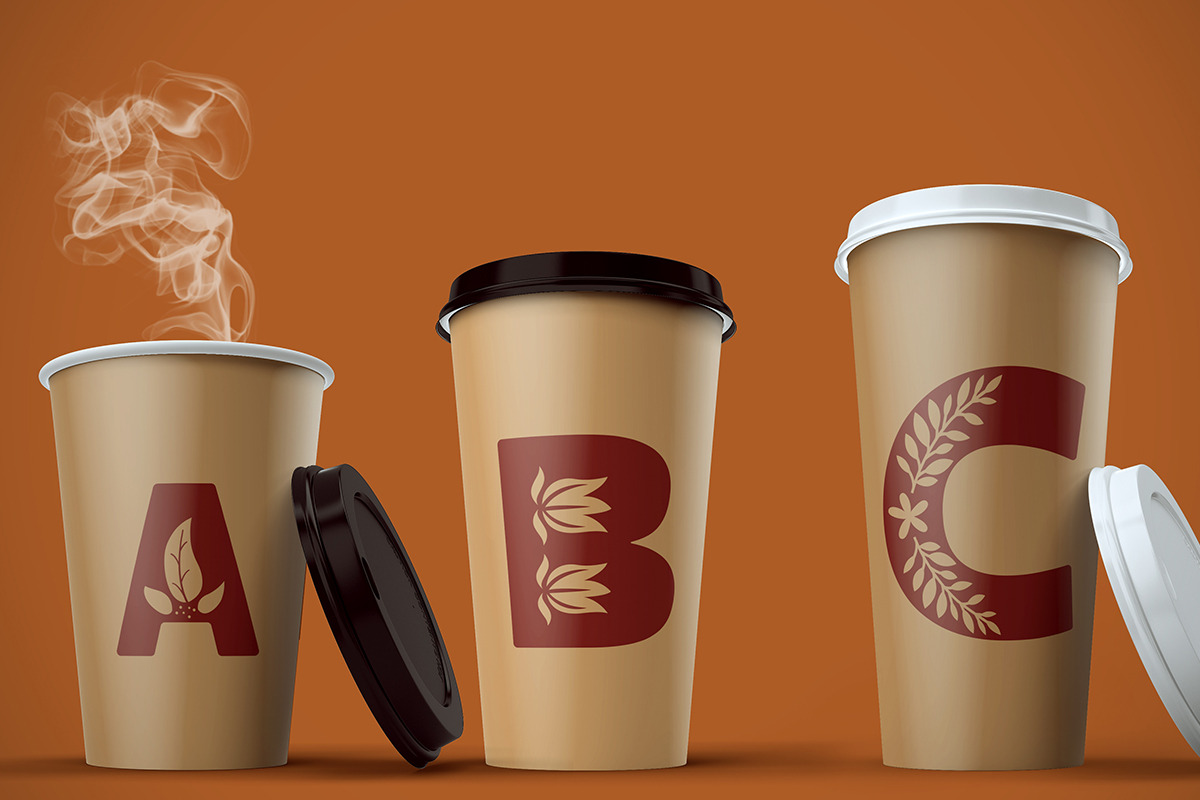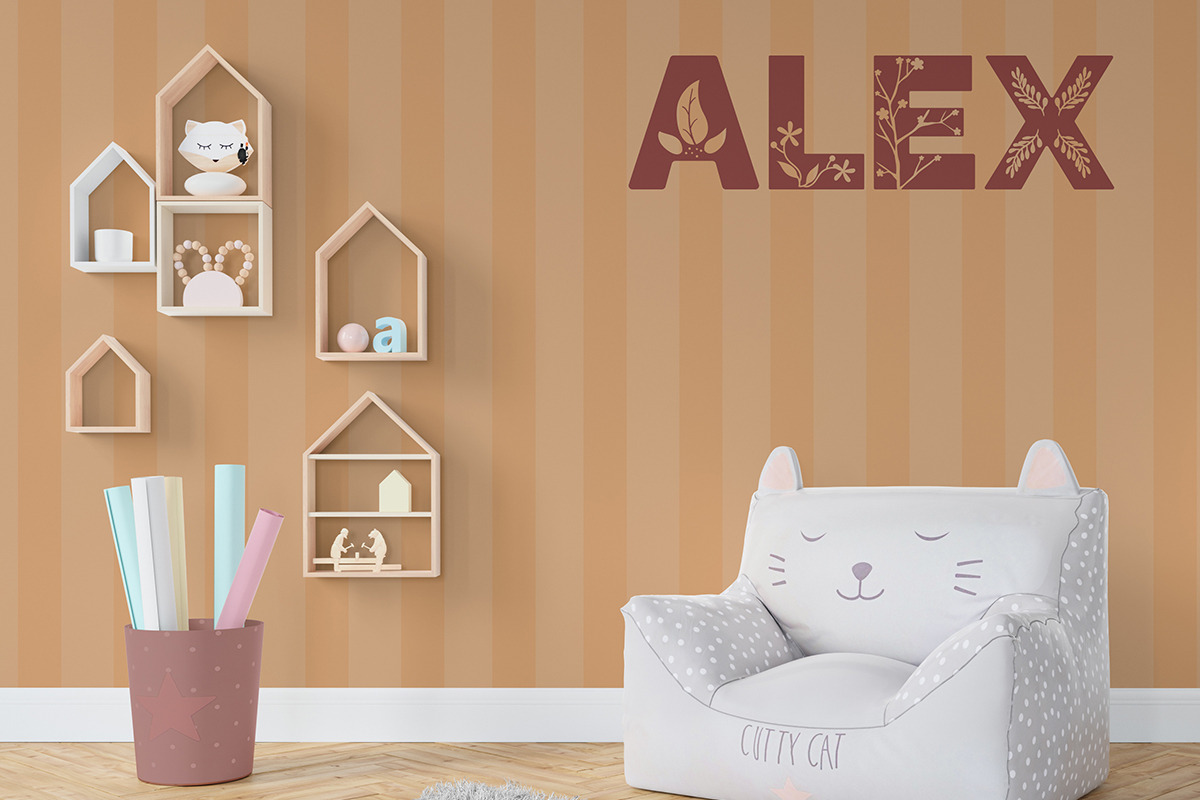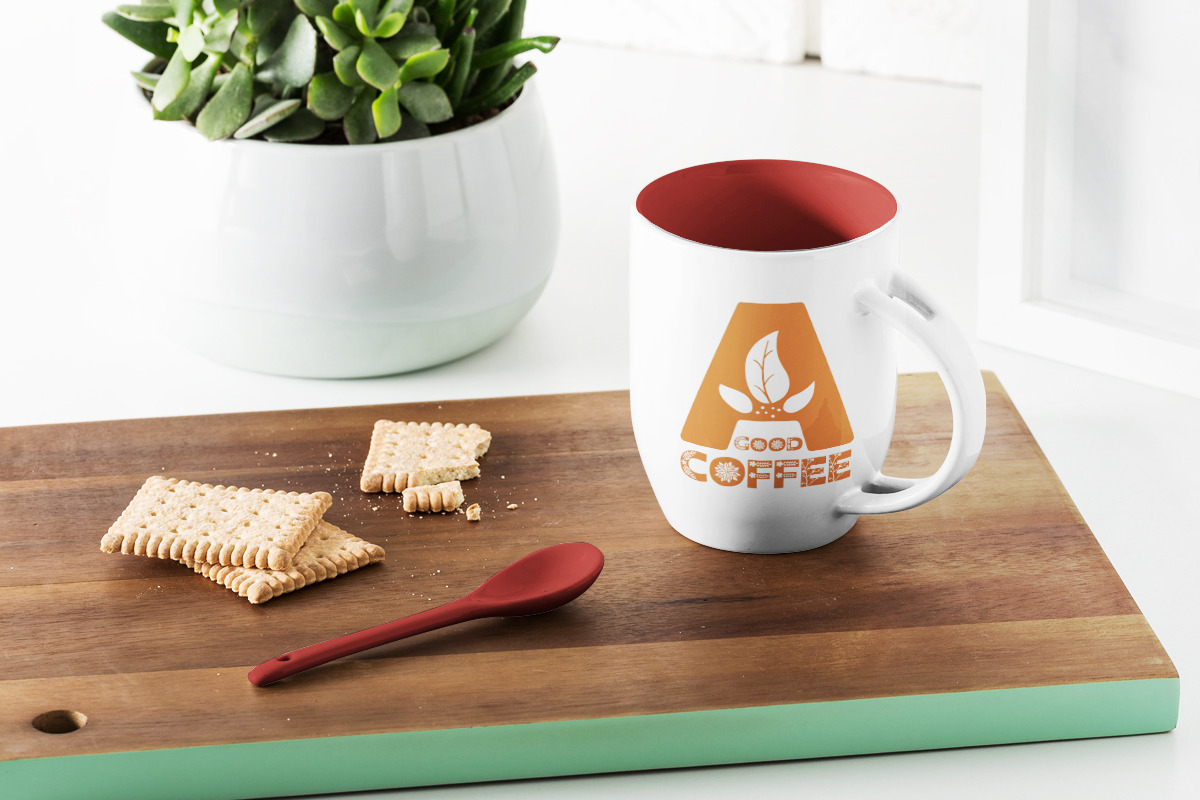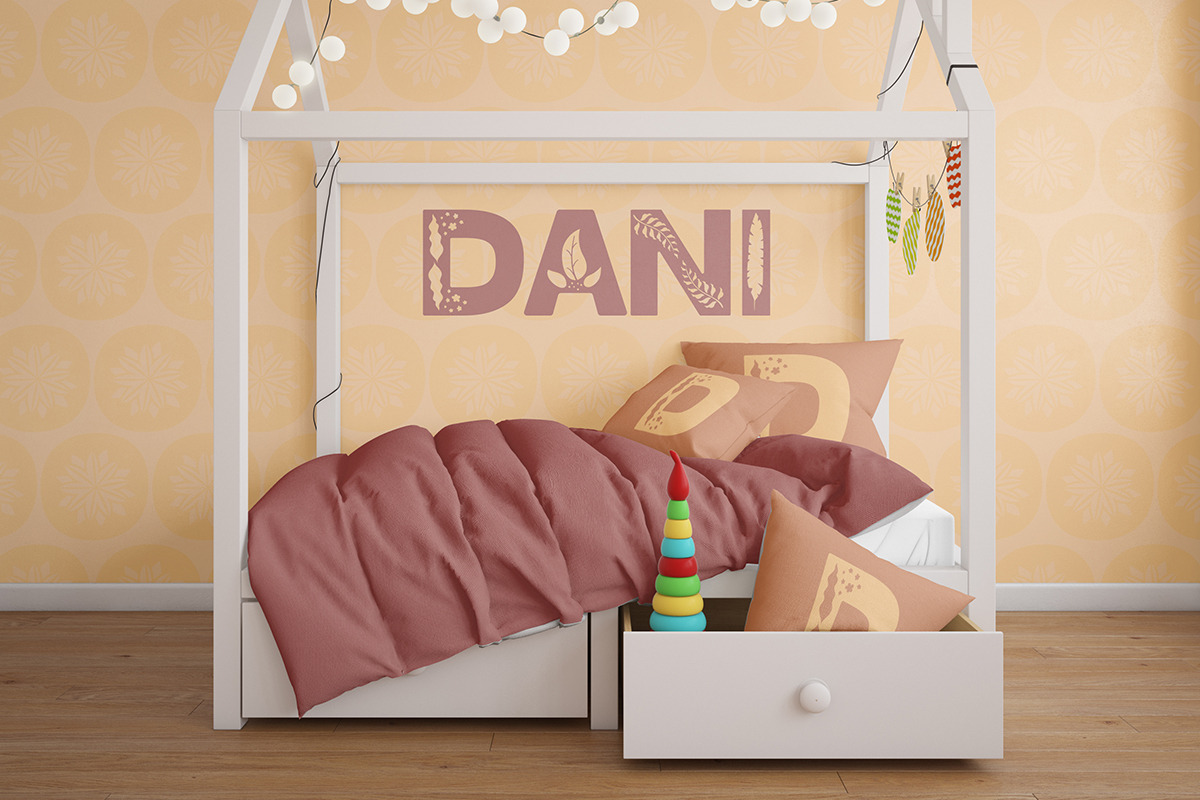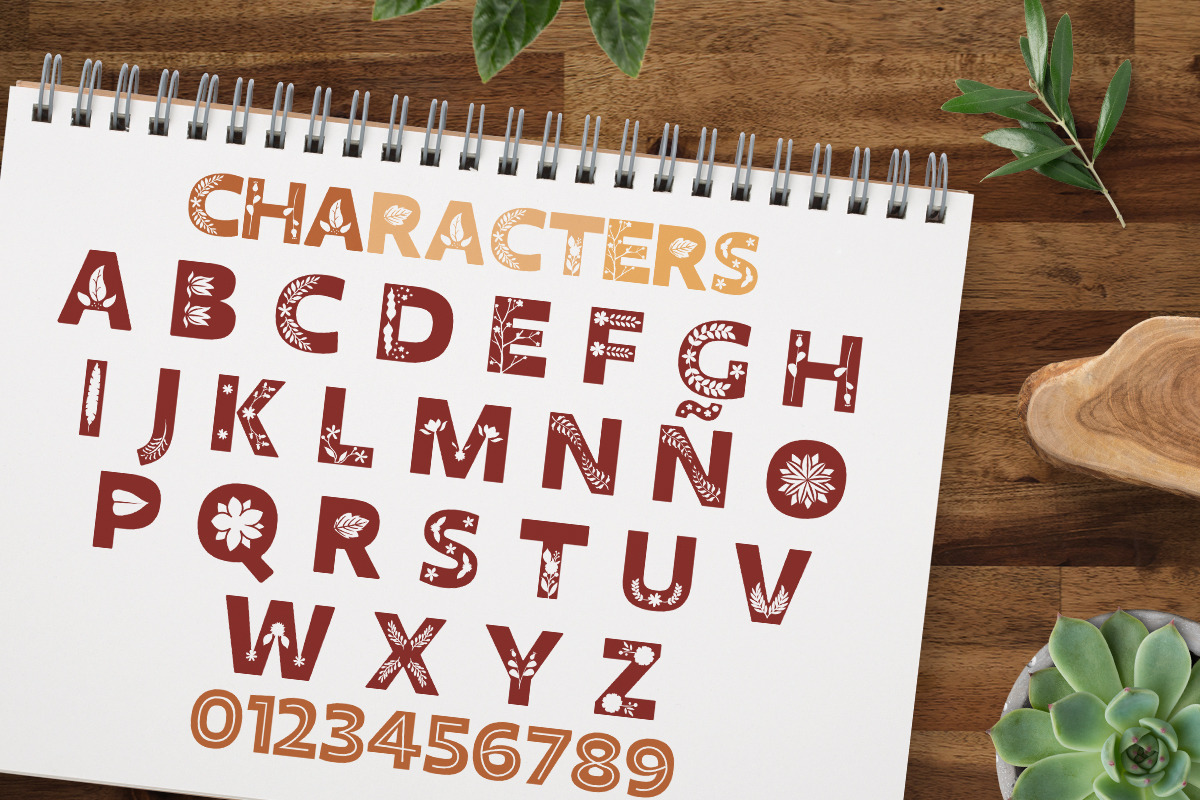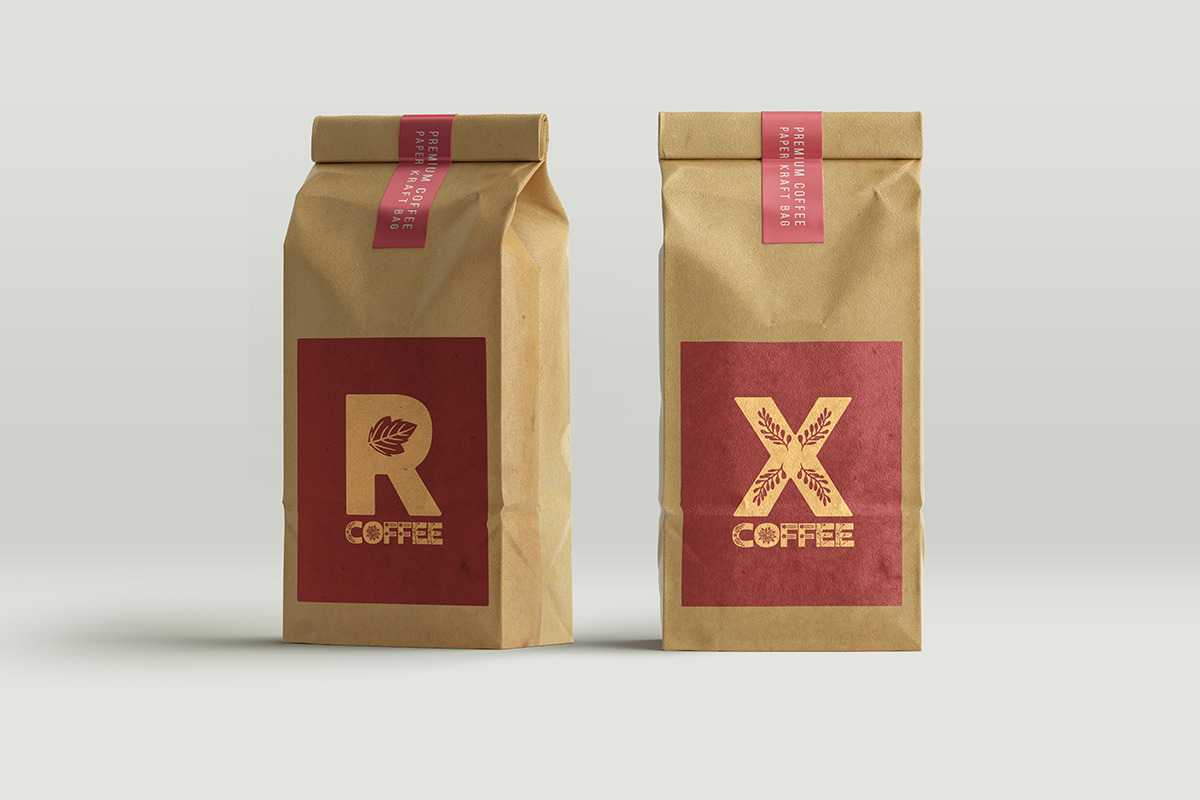
Rose road - Scandinavian floral font
Beautiful flower themed, Scandinavian like font perfect for SVG / cut out projects. Fun, cute and child friendly, perfect for any project you want, there is no limitations!
Cut out / SVG projects
Fun themed titles and names